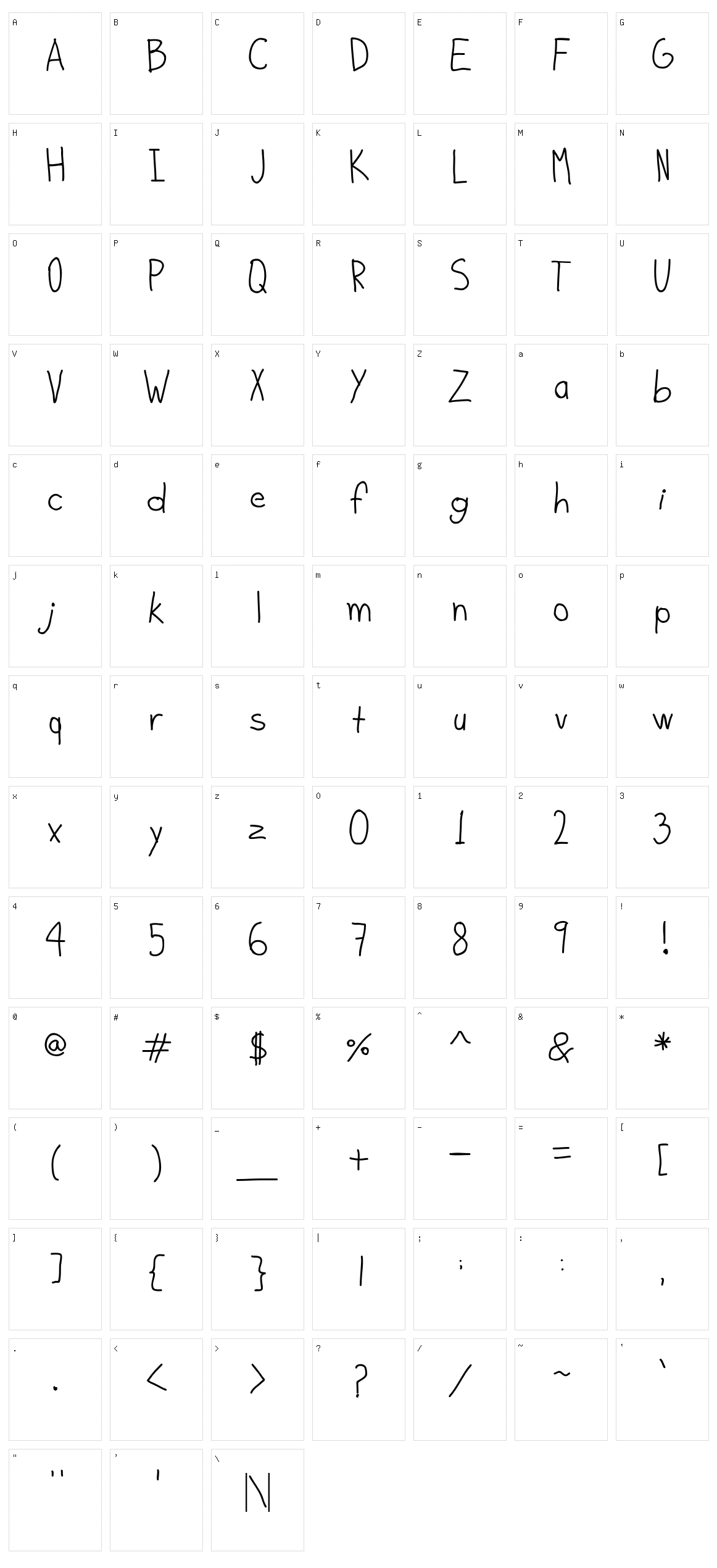
The free font Kiddo-soup is carefully designed by Otto Lerma, showcasing a thoughtful balance of creativity and usability and falls under the Script font style. When you download the ZIP file, it contains only 241.89 KB of font files, making it lightweight and quick to download. Please review the license details below to understand permitted usage and distribution rights. If license information is not available, we recommend using this font for personal projects only or contacting the author directly for commercial usage permissions.